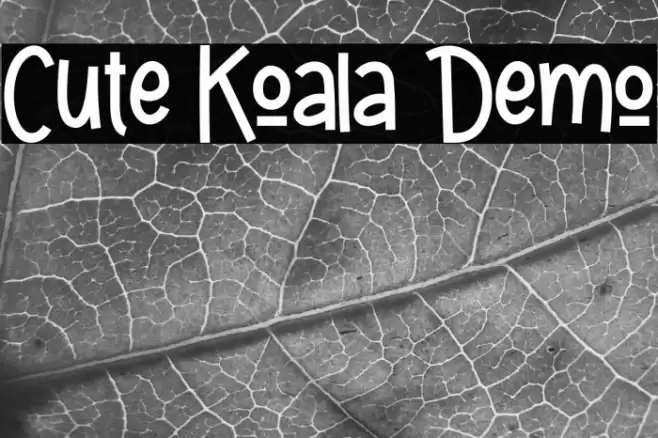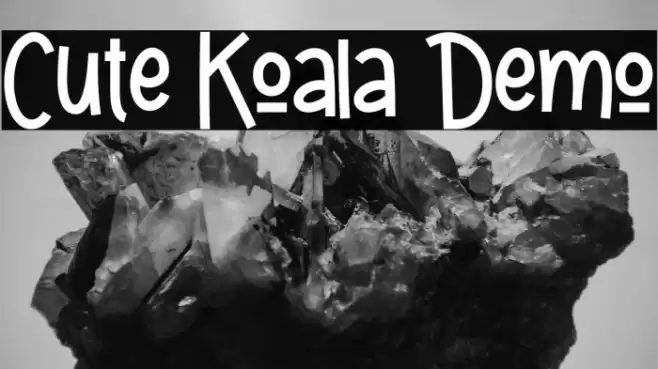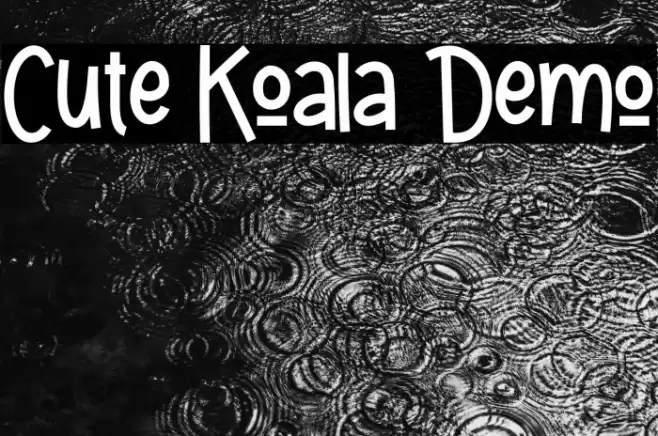
Cute Koala Demo Font
Cute Koala Demo Description
This playful and whimsical font features a hand-drawn style with a friendly and approachable appearance. The characters are slightly irregular, adding a touch of charm and personality. The uppercase letters are tall and narrow, while the lowercase letters are more rounded and compact, creating a delightful contrast. The font's strokes are bold and consistent, making it highly legible even at smaller sizes. Its unique style is perfect for projects that require a fun and informal touch, such as children's books, greeting cards, or playful branding.
A playful, hand-drawn font with bold strokes and a whimsical style from Uncategorized fonts.
- Font: Cute Koala Demo
- Proposed Projects: Ideal for children's books, greeting cards, playful branding, and informal designs.
- Overall Style: Playful